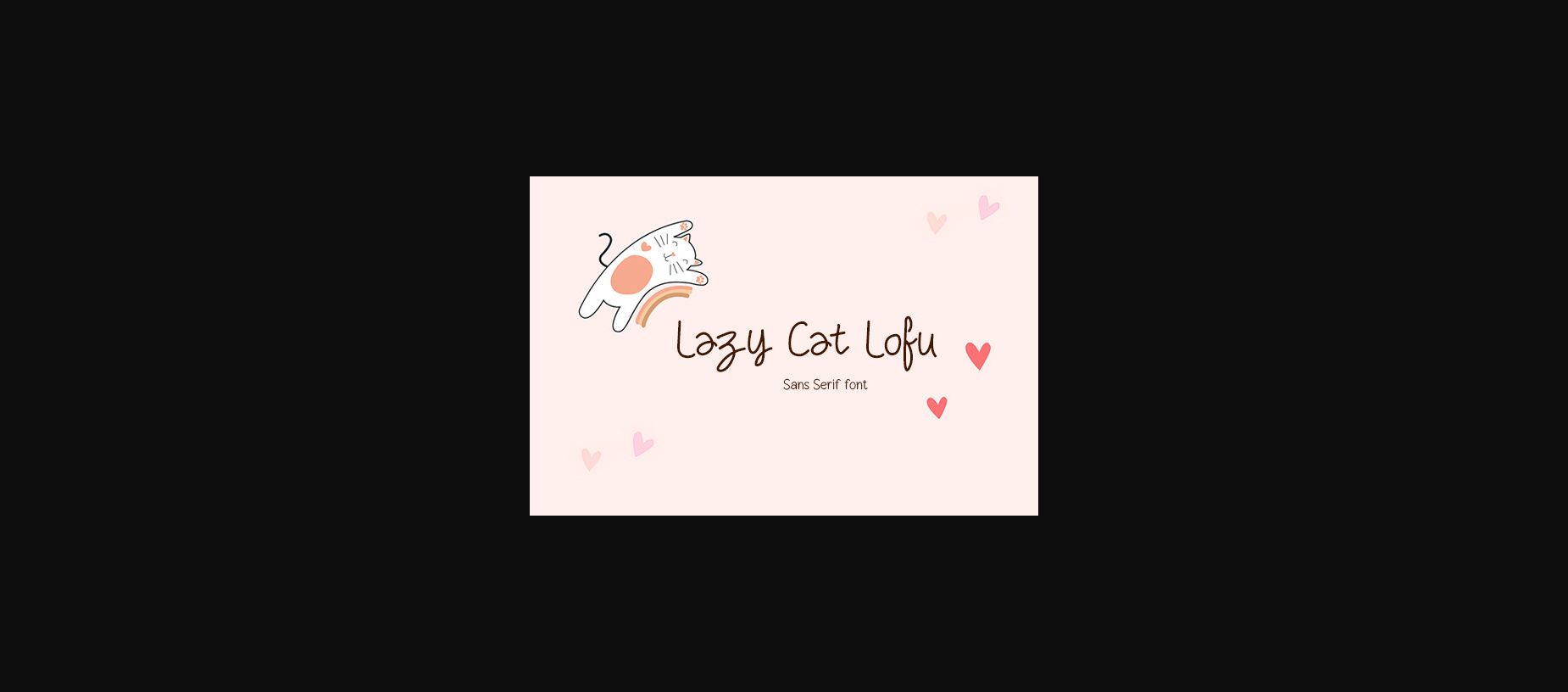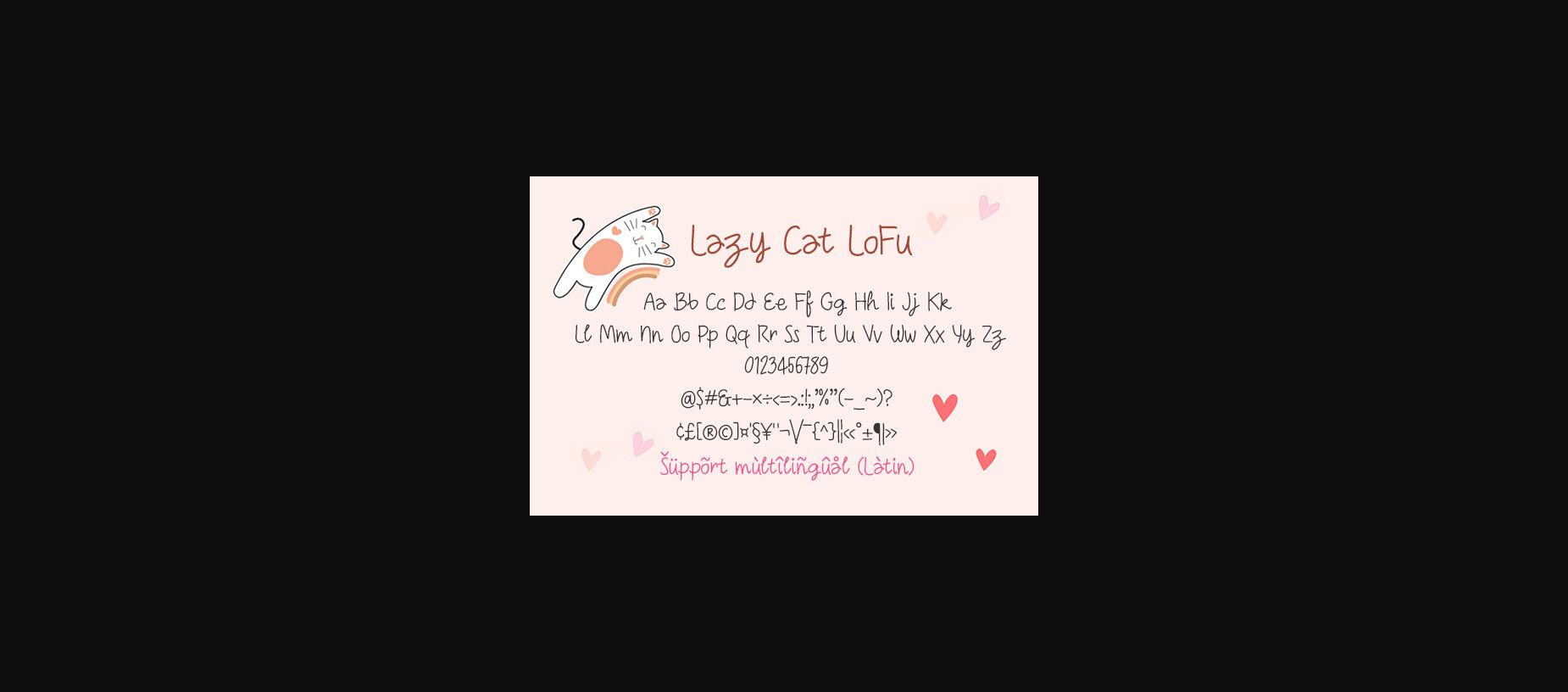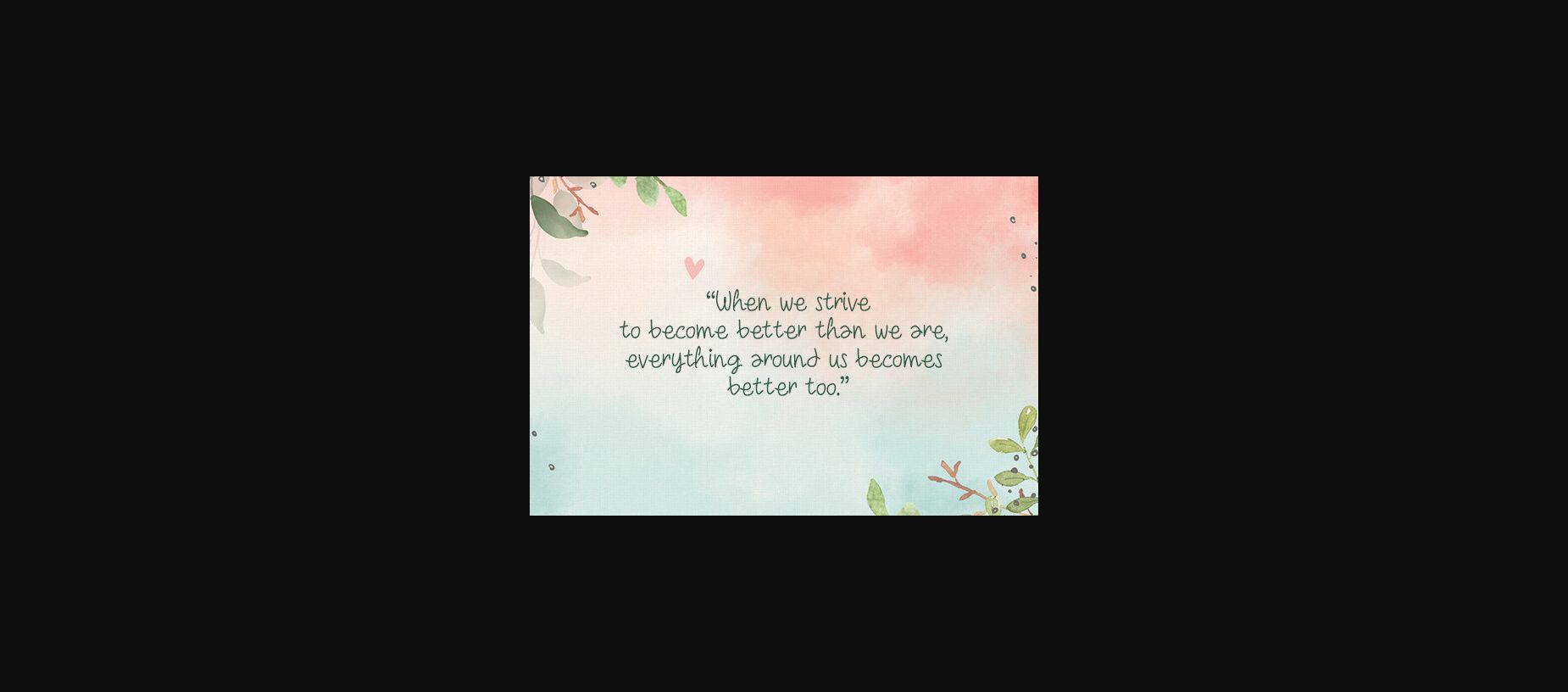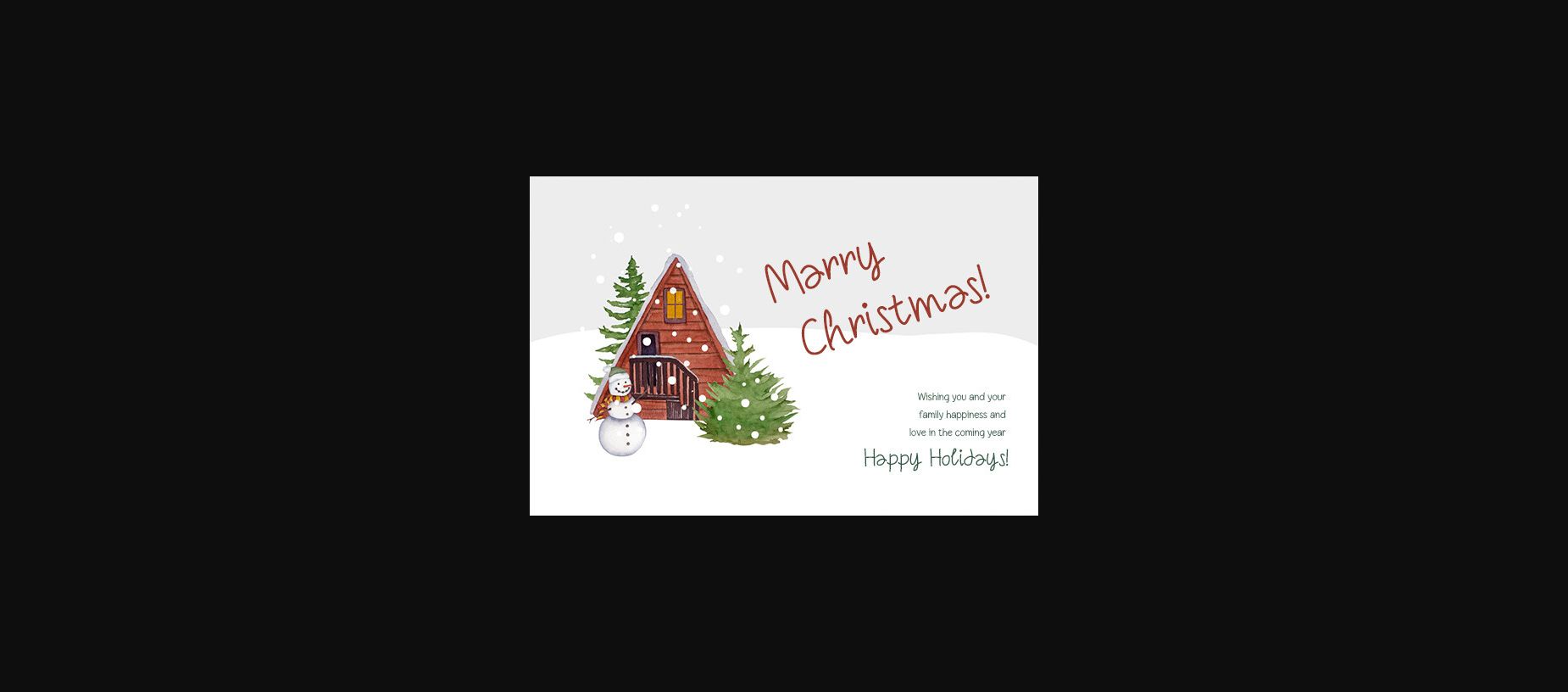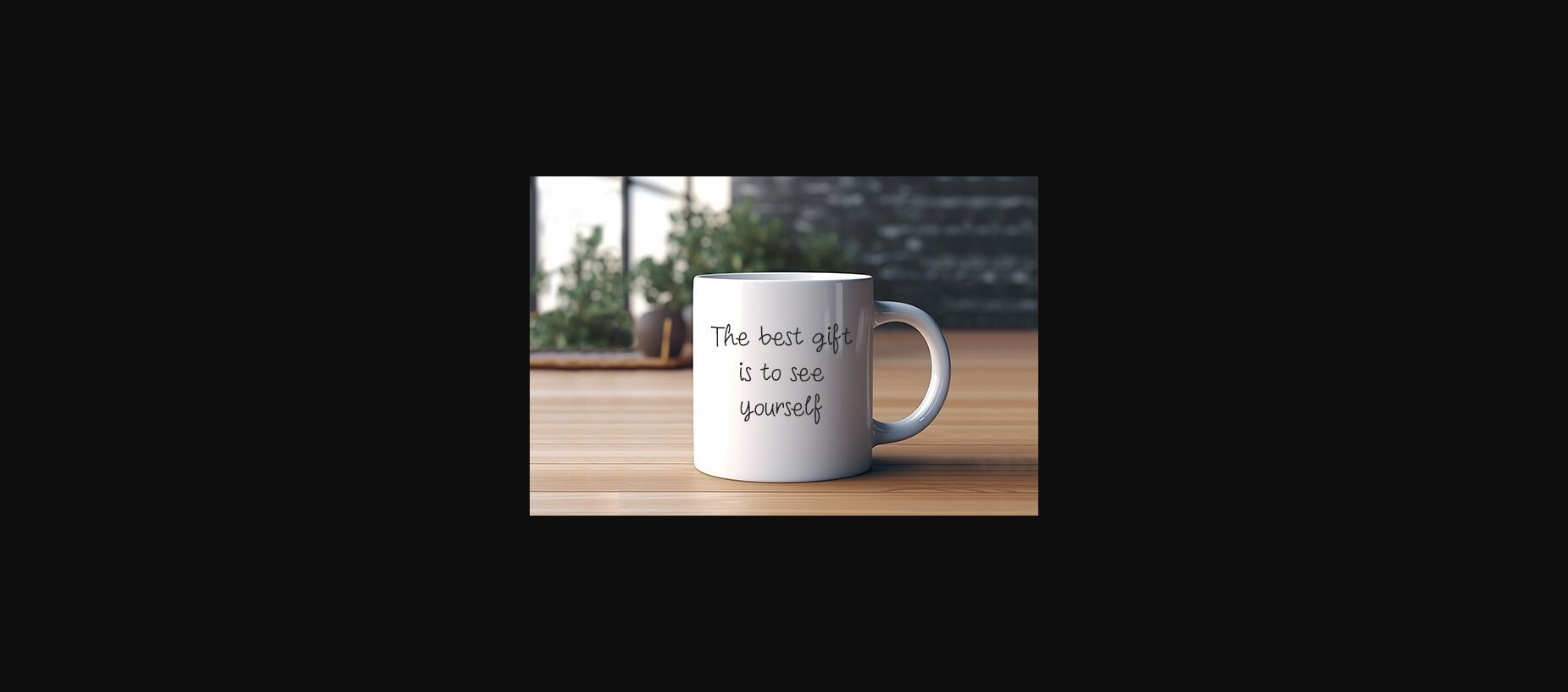
Lazy Cat Lofu Font
About Lazy Cat Lofu Font
Lazy Cat LoFu is designed in a cute and playful sans serif font style. It’s charming, whimsical, and a modern. It would be an awsome addition to your fun projects or diary planner, thank you cards, quotes, greeting cards, logos, posters, blogs, bag, T Shirt, clothing and other designs.